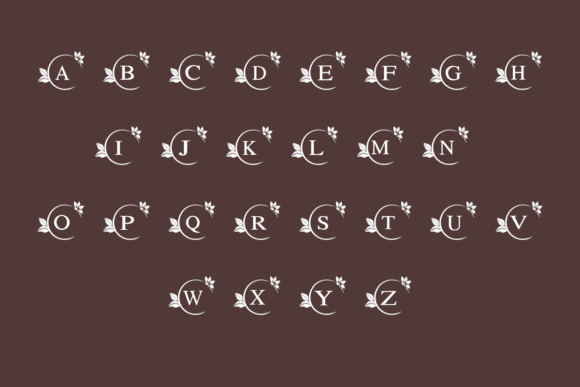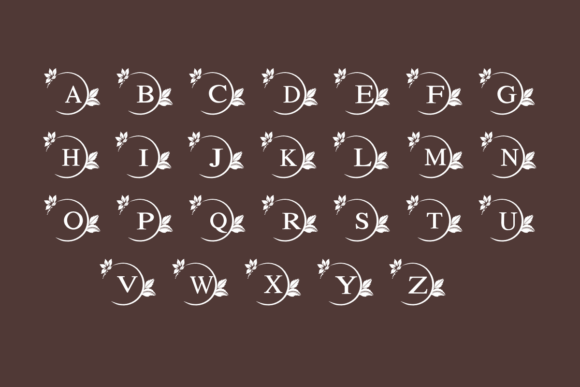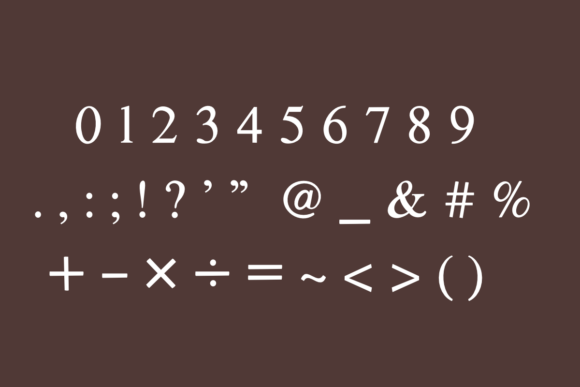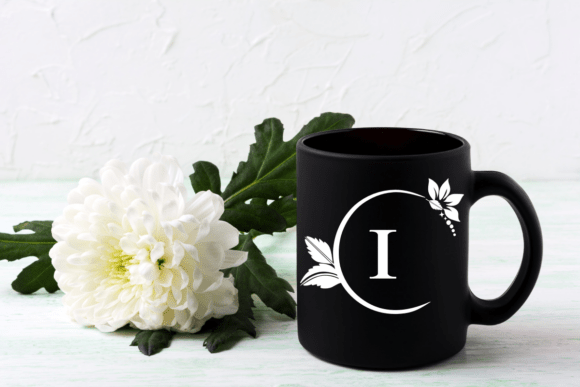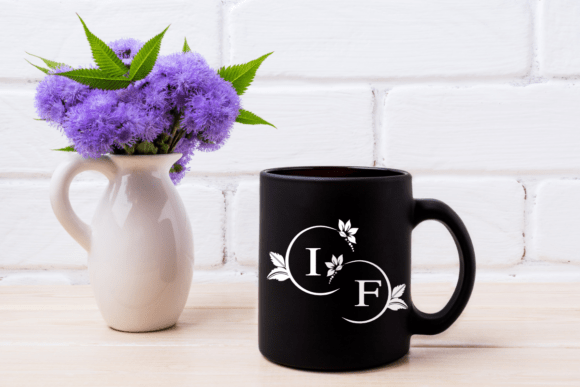
Introduction to Magical Flowers Font Font
Fonts play a crucial role in design, and the Magical Flowers Font font is a typeface that brings both character and versatility to any project. Whether you’re working on a branding project, a website, or a print design, the Magical Flowers Font font offers a unique style that can elevate your work.
Magical Flowers is an enchanting decorative font designed to infuse elegance and botanical charm into branding and graphic projects.
This typeface is uniquely characterized by its integrated floral ornaments, featuring delicate leaves and blooming petals that sprout gracefully from the letterforms or encircle them in moon-like frames It is a perfect choice for magical or fantasy-themed logos, boutique florist branding, celestial-inspired stationery, and any creative design that requires a romantic, ethereal aesthetic.
Key Features of Magical Flowers Font Font
Why Choose Magical Flowers Font Font?
The Magical Flowers Font font is more than just a typeface – it’s a design tool that helps you communicate your message with style and clarity. Its unique character set and versatile design make it suitable for a wide range of applications, from elegant invitations to bold headlines.
With its carefully crafted letterforms and balanced proportions, the Magical Flowers Font font ensures readability and visual appeal across all mediums.
What makes Magical Flowers Font font special?
The Magical Flowers Font font stands out with its unique design, exceptional readability, and versatility across various design applications.